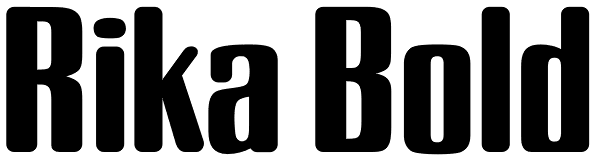
Rika
Rika is a combination of supposedly male and female characteristics, combining together to create a beautifully realised, high impact, condensed typeface. The tall but well-built characters are softened with smooth curves and a mixing in of thin...